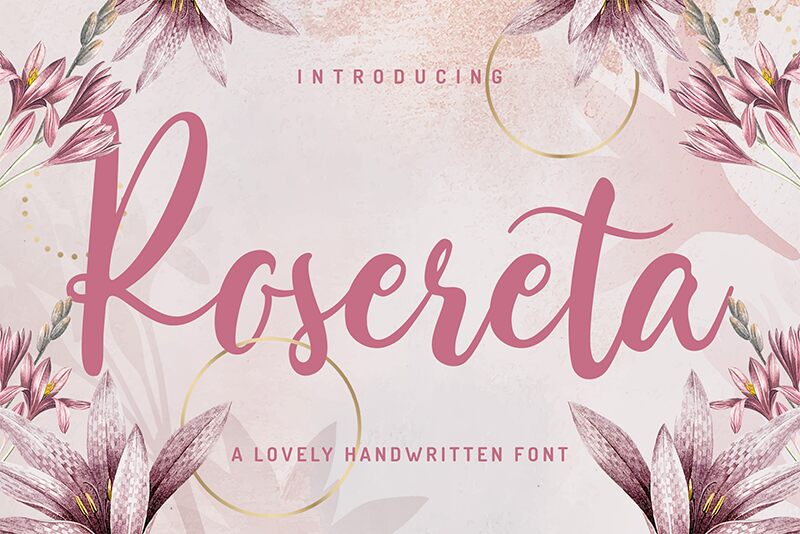
Rosereta
Rosereta is a beautiful light, narrow calligraphy font designed by Almarkhatype Studio's Abdul Malik and Sucha. Its elegant curves make it perfect for wedding invitations, logos and luxury branding projects.